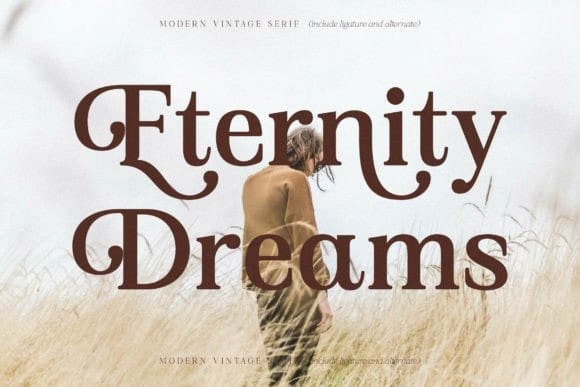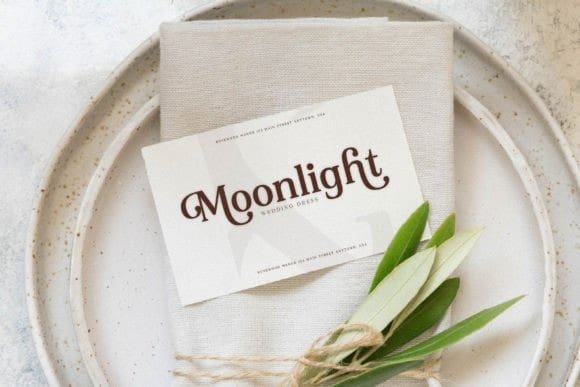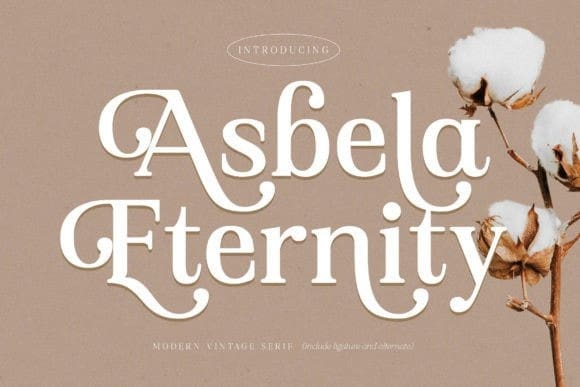
Asbela Eternity Font
Asbela Eternity Font is a modern and classic typeface that has its own unique style and modern look. This typeface is perfect for an elegant & luxurious logo, book or movie title design, fashion brand, magazine, clothes, lettering, quotes, and so much more.